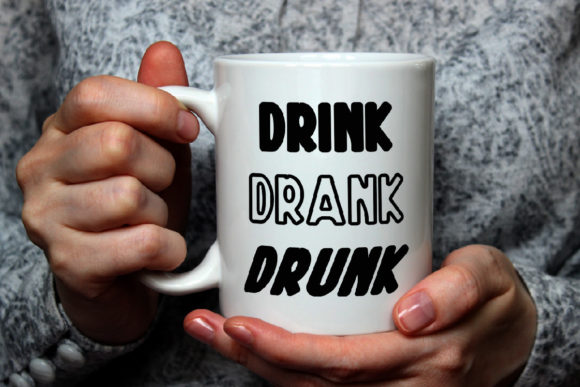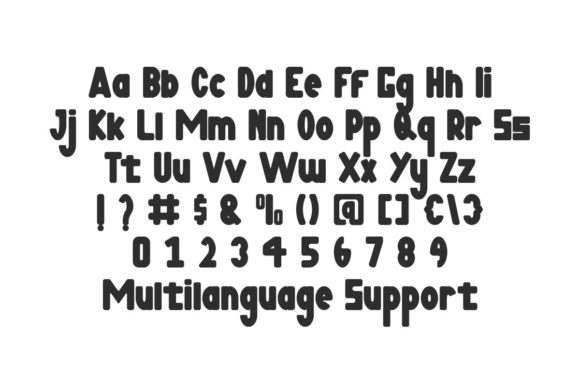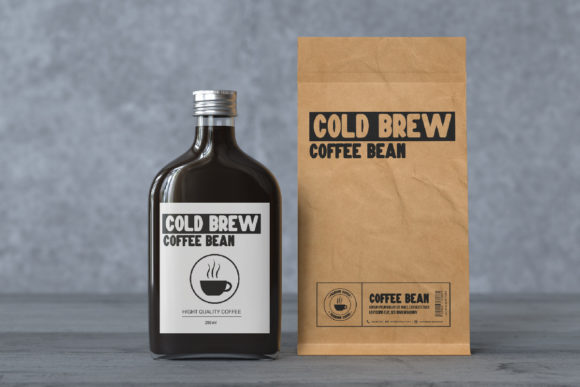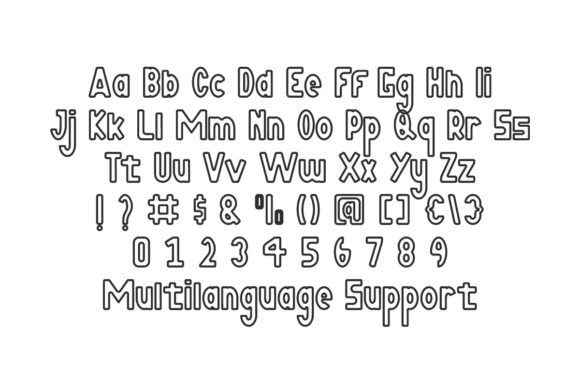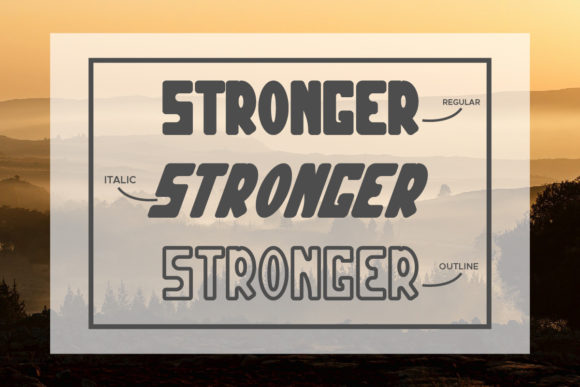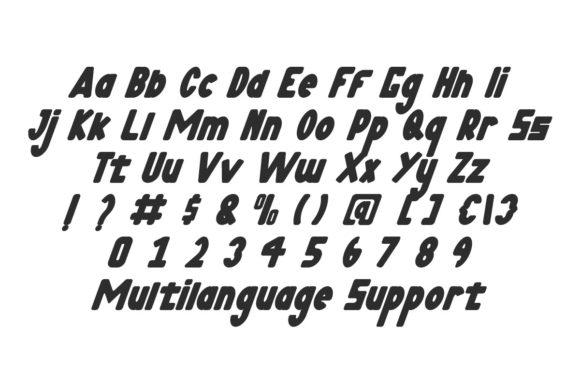
Jumps Hill Font – Free Download
Introduction to Jumps Hill Font
Jumps Hill is a modern sans serif font with negative space on its shapes.
This font has a futuristic and techno style that looks stunning in just about every context Use it for logos, print, collage, body text, and more.
Key Features of Jumps Hill Font
Why Choose Jumps Hill Font?